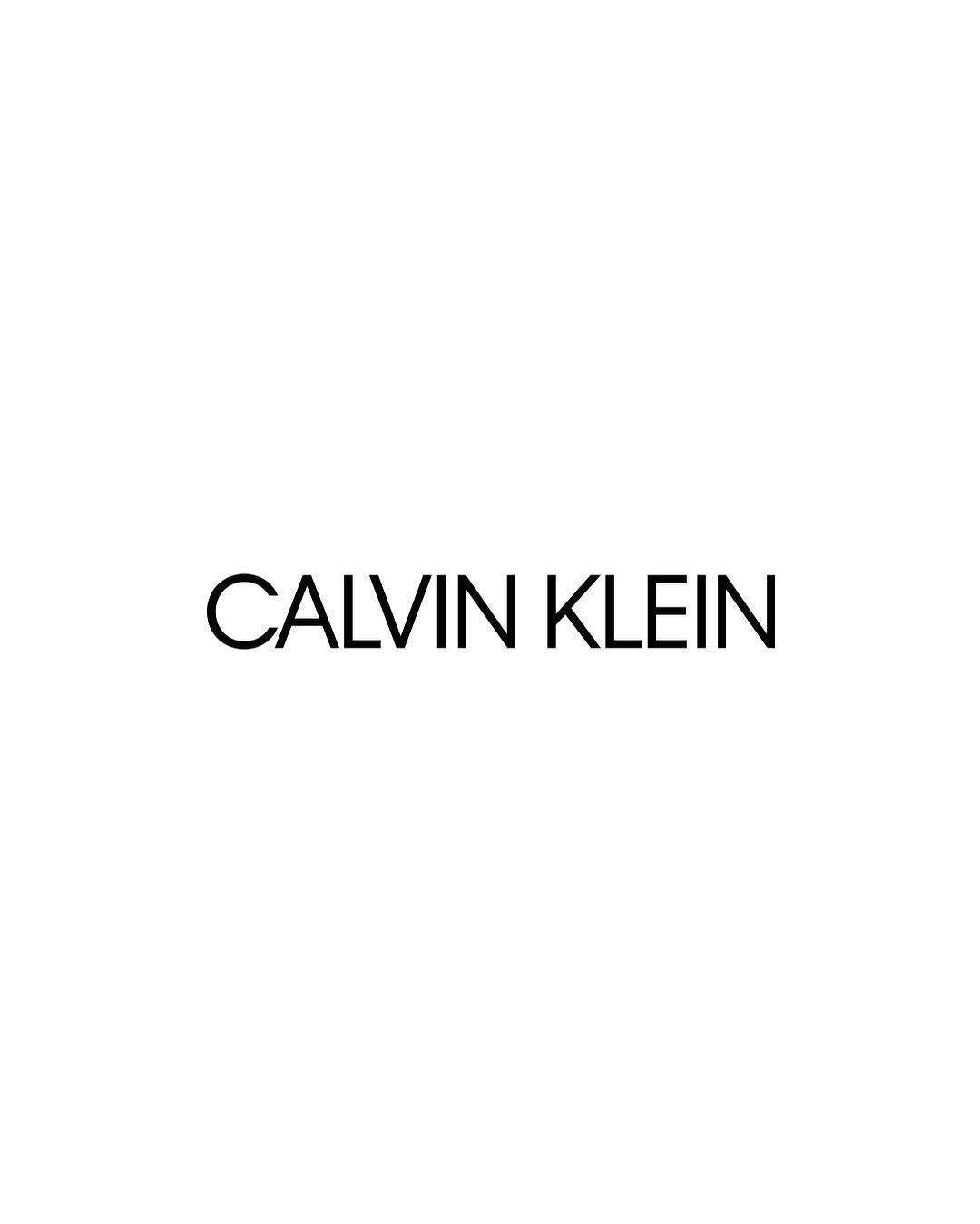
Calvin Klein Font Type
Calvin Klein Font Type. Some major names that make use of this font include gucci, calvin klein, and vogue. For example, times new roman bold or times new roman 10 pt.
Salah satu contoh desain logo yang cukup populer dengan menggunakan font bodoni adalah brand vogue dan calvin klein. What font does calvin klein use for its logo? Created by paul renner in 1927 by bauer type foundry, this iconic font captures the spirit of modernity.
Fonts, However, Refer To The Variations Possible With A Typeface.
Some Major Names That Make Use Of This Font Include Gucci, Calvin Klein, And Vogue.
The Lettering For Both The Monogram And The Logotype Is Very Similar To A Font Called.
Shape and font of the calvin klein logo. Wood type font collection is one of the old fashion fonts you must have seen in many mexican diners and coffee shops. In basic > sans serif.